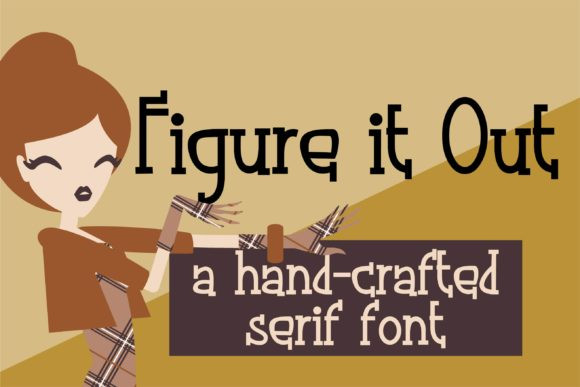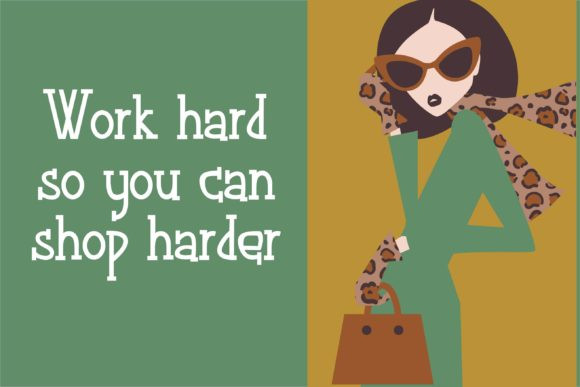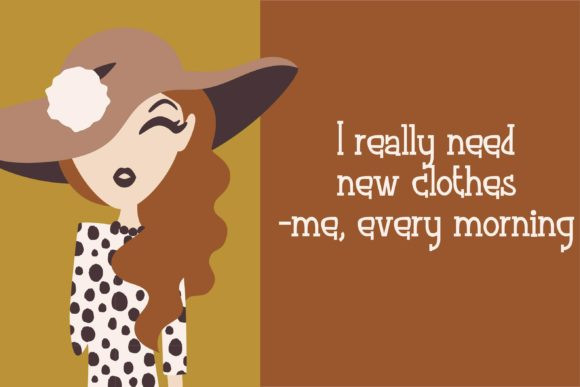
Figure It out Font
Figure It out is a true must-have. This hand-written font sports slab serifs and has really tight tracking. It comes in both Regular and Bold.